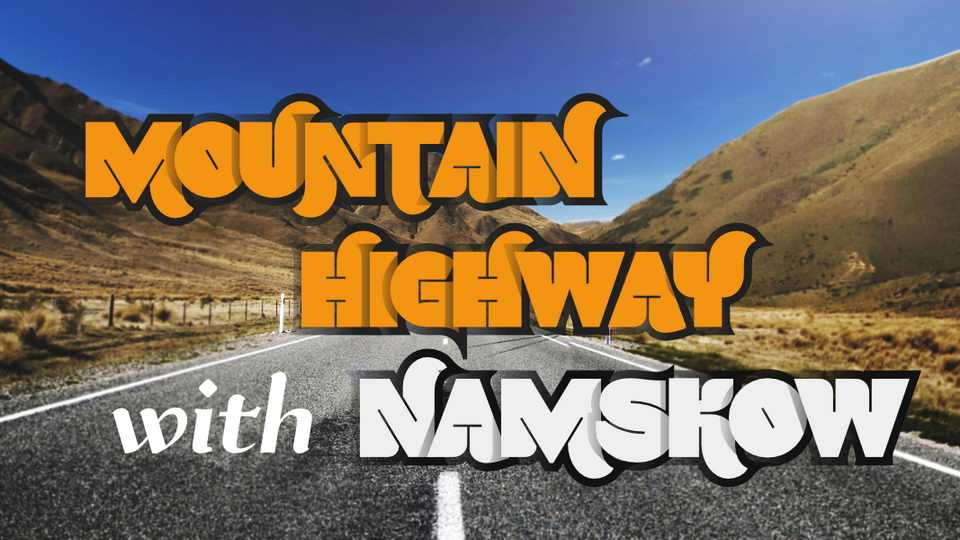
Download Namskow font, an OpenType SVG orange and white color typeface, a proposal for multicolor, vector fonts based on Namskin & Namskout.
Designer: Grzegorz Luk